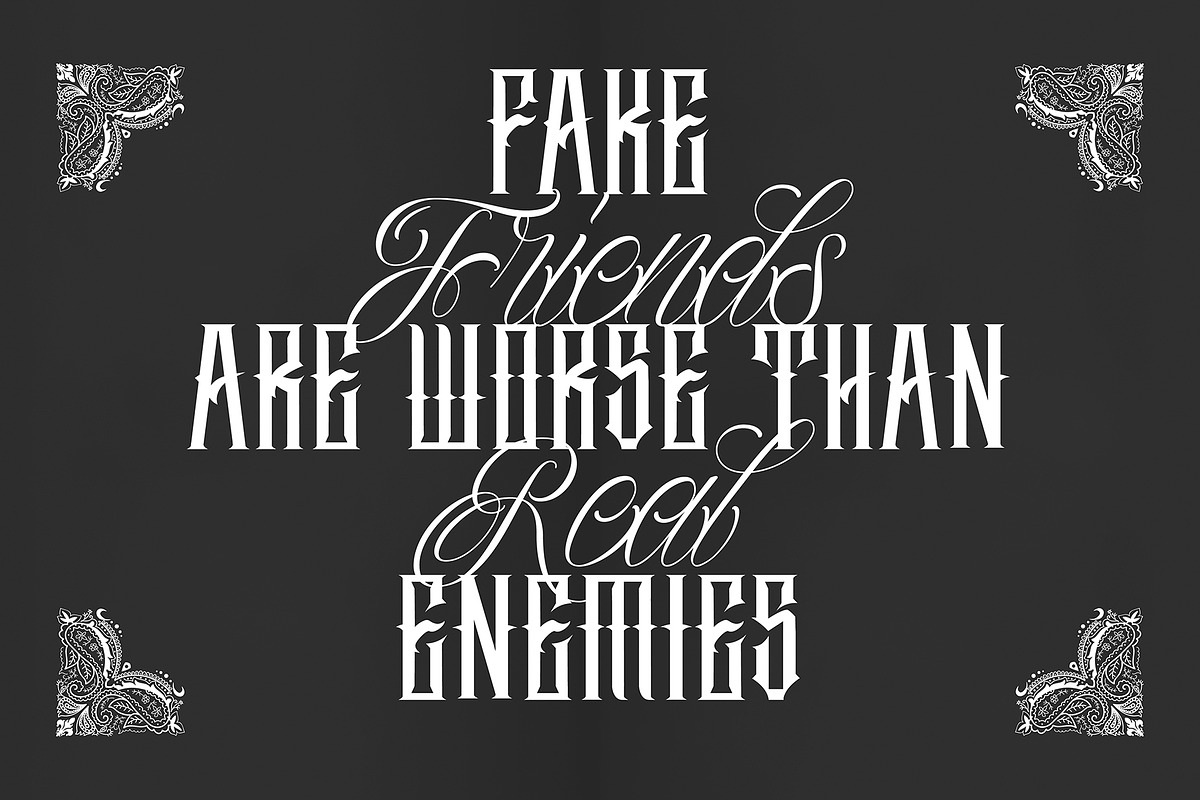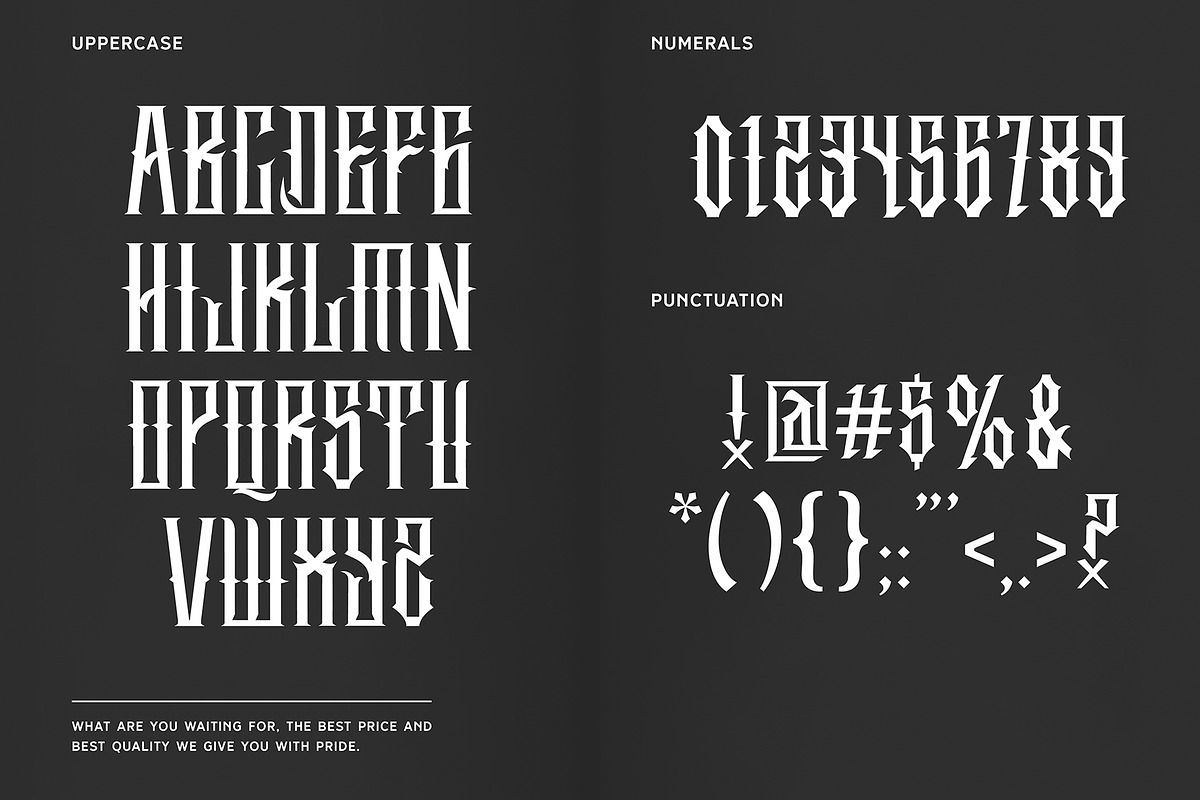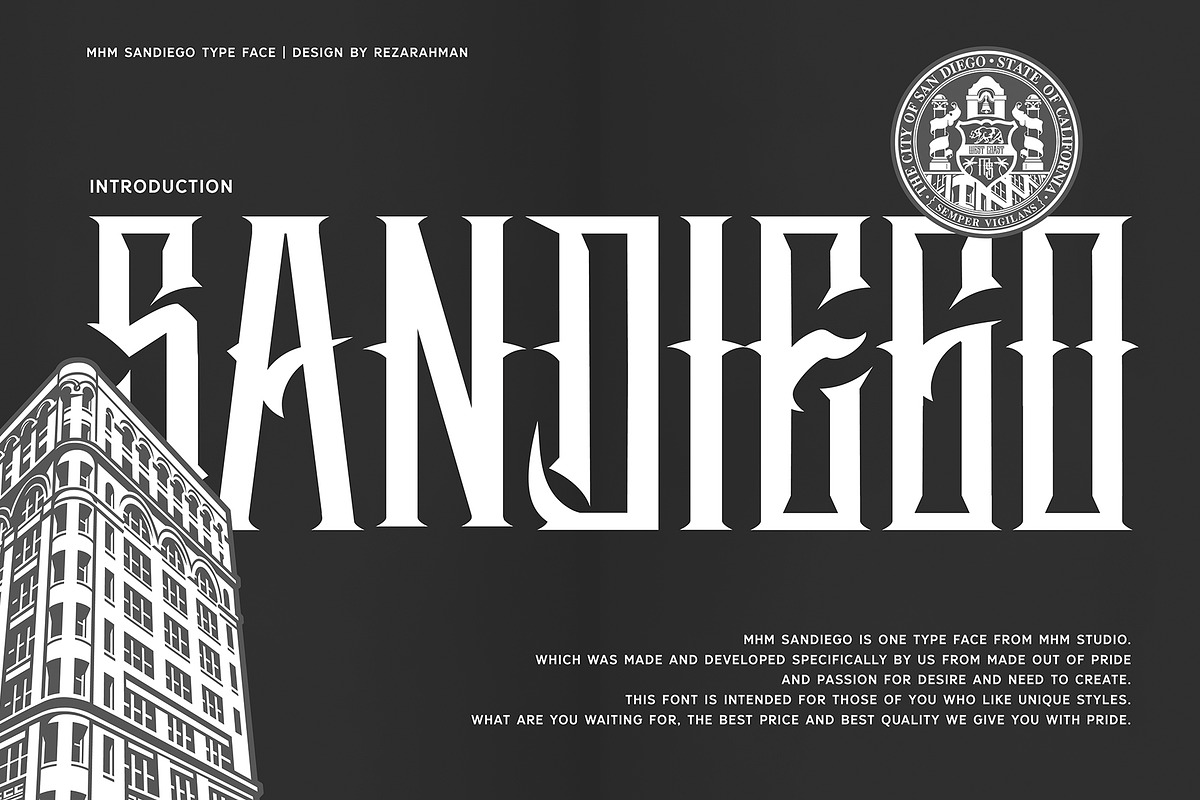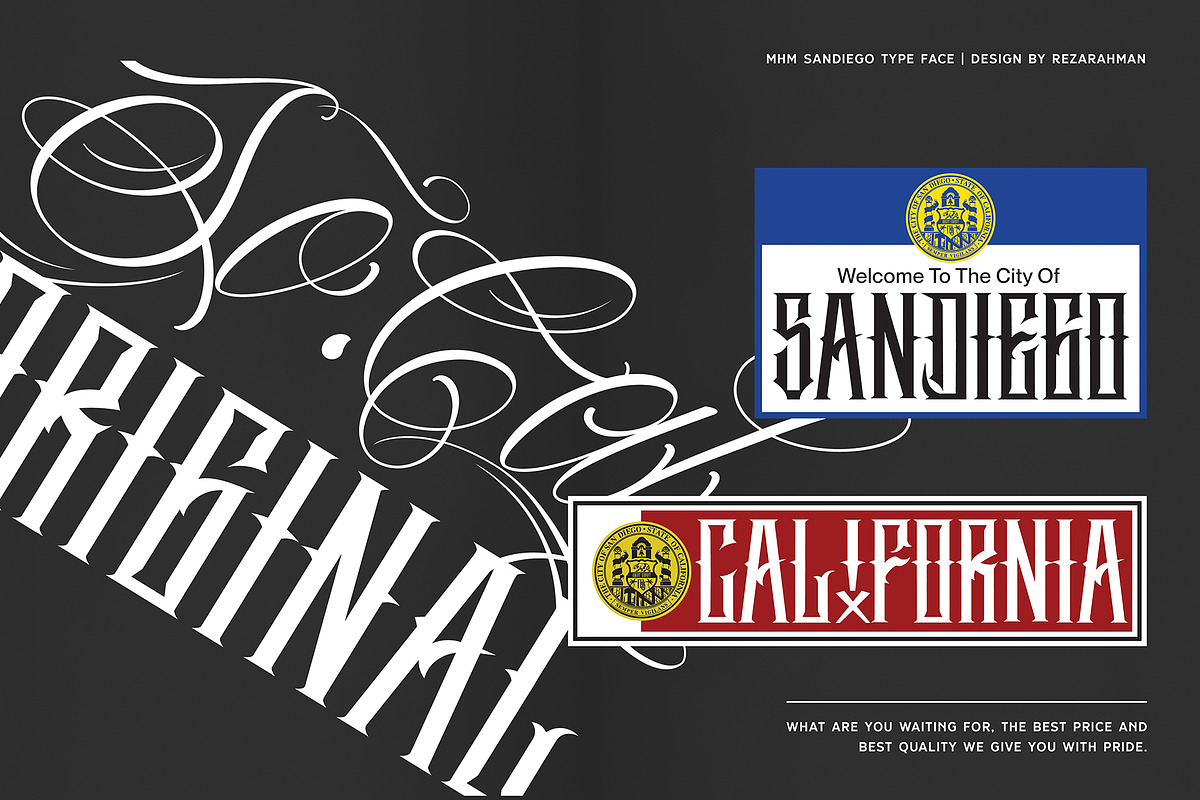
MHM Sandiego
MHM Sandiego is one typeface from MHM studio, which was made and developed specifically by us from made out of pride and passion for the desire and need to create. This font is intended for those of you who like unique styles. What are you waiting for, the best price and best quality we give you with pride.